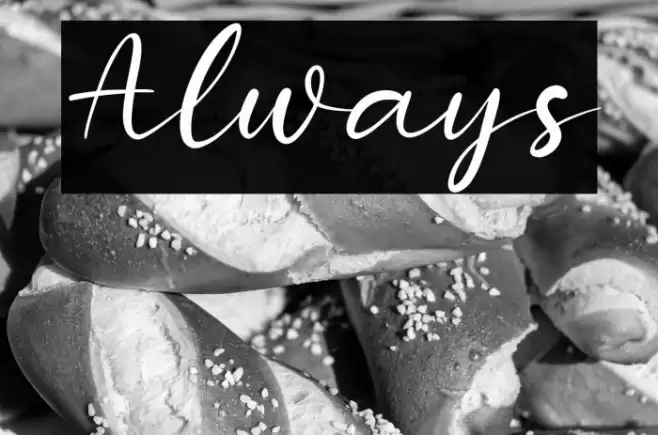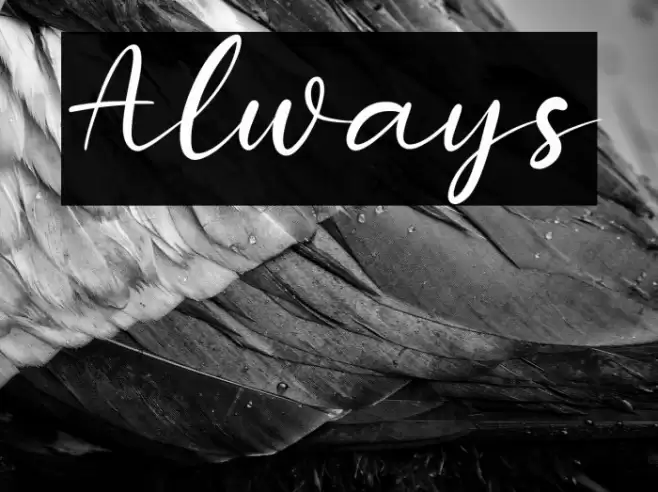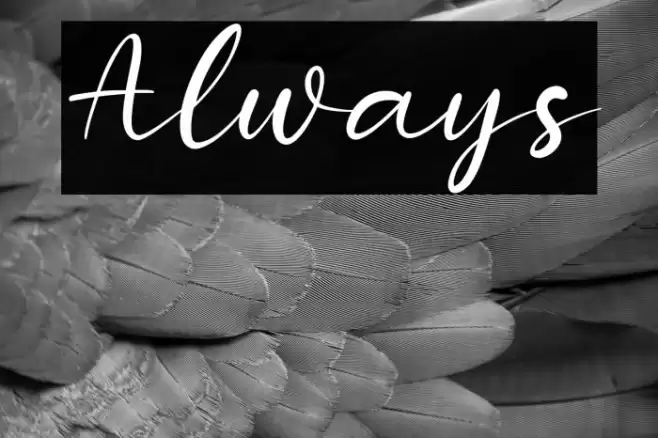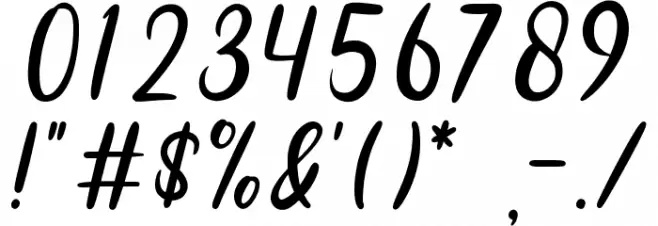
Always Font
Always Description
This font features a flowing, cursive style with elegant, sweeping strokes that give it a handwritten appearance. The uppercase letters are distinct with a slight slant, while the lowercase letters maintain a consistent fluidity, enhancing the script-like quality. Numbers and special characters are designed to complement the alphabet, maintaining the same graceful curves and lines. The overall look is sophisticated and stylish, making it suitable for projects that require a personal touch or a sense of elegance.
A cursive, handwritten-style font with elegant, flowing strokes from Regular fonts.
- Proposed Projects: Ideal for wedding invitations, greeting cards, branding, and logo design where a personal and elegant touch is desired.
- Overall Style: Elegant, Handwritten
- Use Case: Logos, Invitations, Greeting Cards